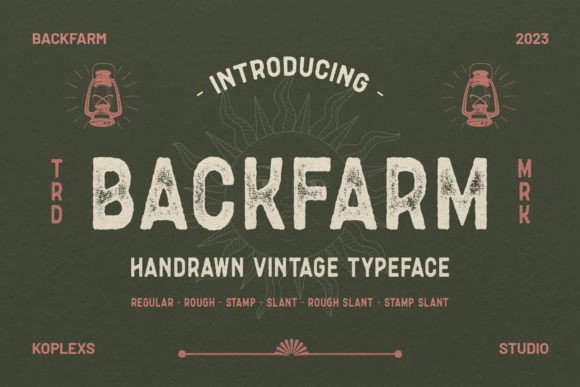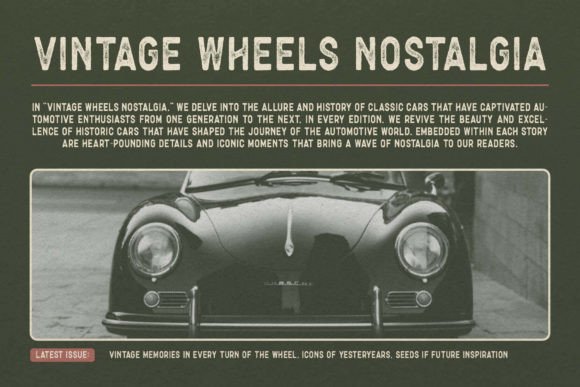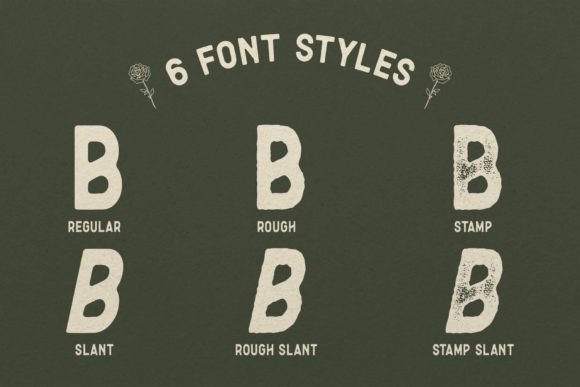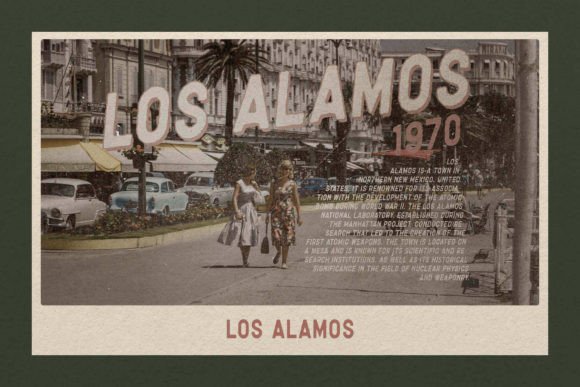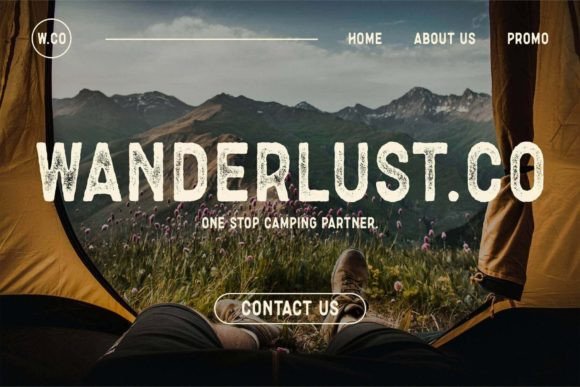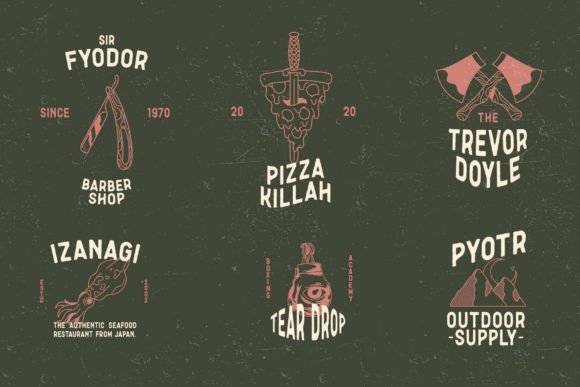
Backfarm Font
Backfarm – Handrawn Vintage Typeface
Backfarm fonts is the epitome of vintage charm and hand-drawn authenticity. This versatile font family offers a range of styles to suit your design needs, including Backfarm Regular for clean, classic appeal, Backfarm Rough for a rustic touch, and Backfarm Stamp for an edgy, stamped effect. Need a slanted variation? No problem! Backfarm has you covered with Backfarm Slant, Backfarm Rough Slant, and Backfarm Stamp Slant. Whether you’re designing a rustic farmstead logo, a vintage-inspired poster, or anything in between, Backfarm brings character and uniqueness to your projects. Head to koplexsstudio now to elevate your designs with the timeless charm of Backfarm fonts. 🎨🔤✨
Backfarm fonts are suitable for a wide range of creative projects. They work exceptionally well for:
1. **Vintage Designs**: Whether you’re crafting vintage-inspired logos, posters, or packaging, Backfarm’s Handrawn Vintage Typeface adds an authentic touch to your design, evoking nostalgia and character.
2. **Handmade and Artistic Creations**: Backfarm is perfect for projects that require a handmade, artisanal feel. It’s ideal for custom invitations, greeting cards, and any design where you want to convey a personal touch.
3. **Typography Enthusiasts**: If you’re a typography enthusiast, Backfarm offers a diverse set of styles to experiment with, from clean and classic to rugged and stamped, allowing you to explore various creative avenues.
4. **Branding**: Businesses seeking a unique and memorable brand identity can use Backfarm to create distinctive logos and branding materials that stand out from the crowd.
In summary, Backfarm fonts are versatile and well-suited for designers, artists, and businesses looking to infuse their projects with vintage charm and hand-drawn authenticity. 🎨🔤✨